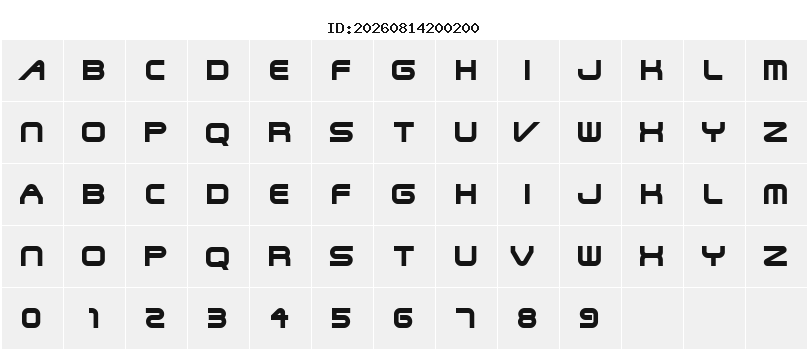
Steelwolfuntitled Preview
About Steelwolfuntitled.ttf
Steelwolfuntitled.ttf is a modern, elegant sans-serif font designed for ultimate readability and visual harmony. Perfect for branding, headlines, web design, and print materials.